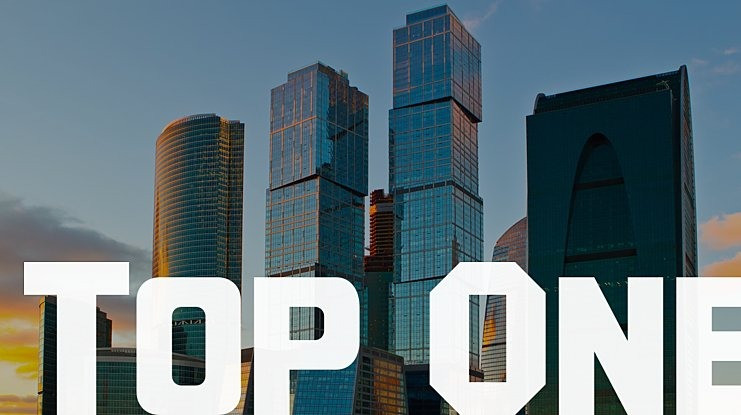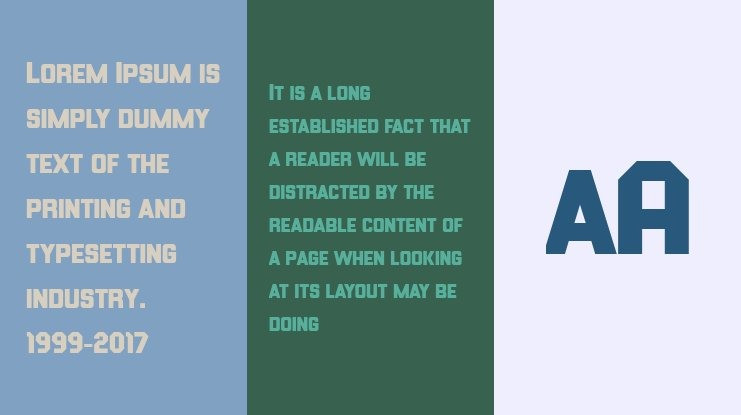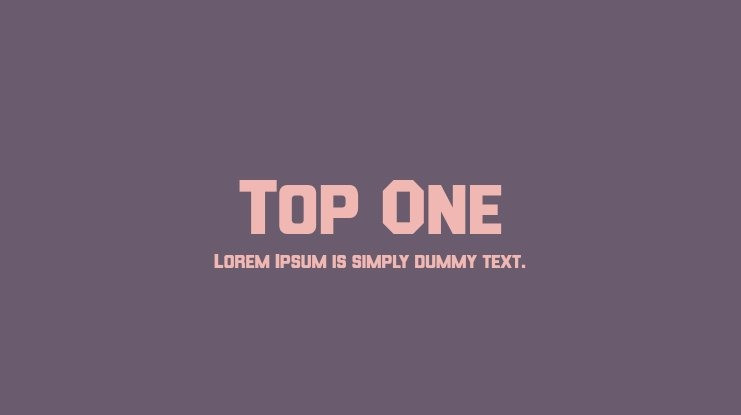
Top One Font
Top One Sans Serif Font, This bundle features strong, confident and powerful typefaces designed to work great with sports logos, club branding, apparel applications, labels and more.